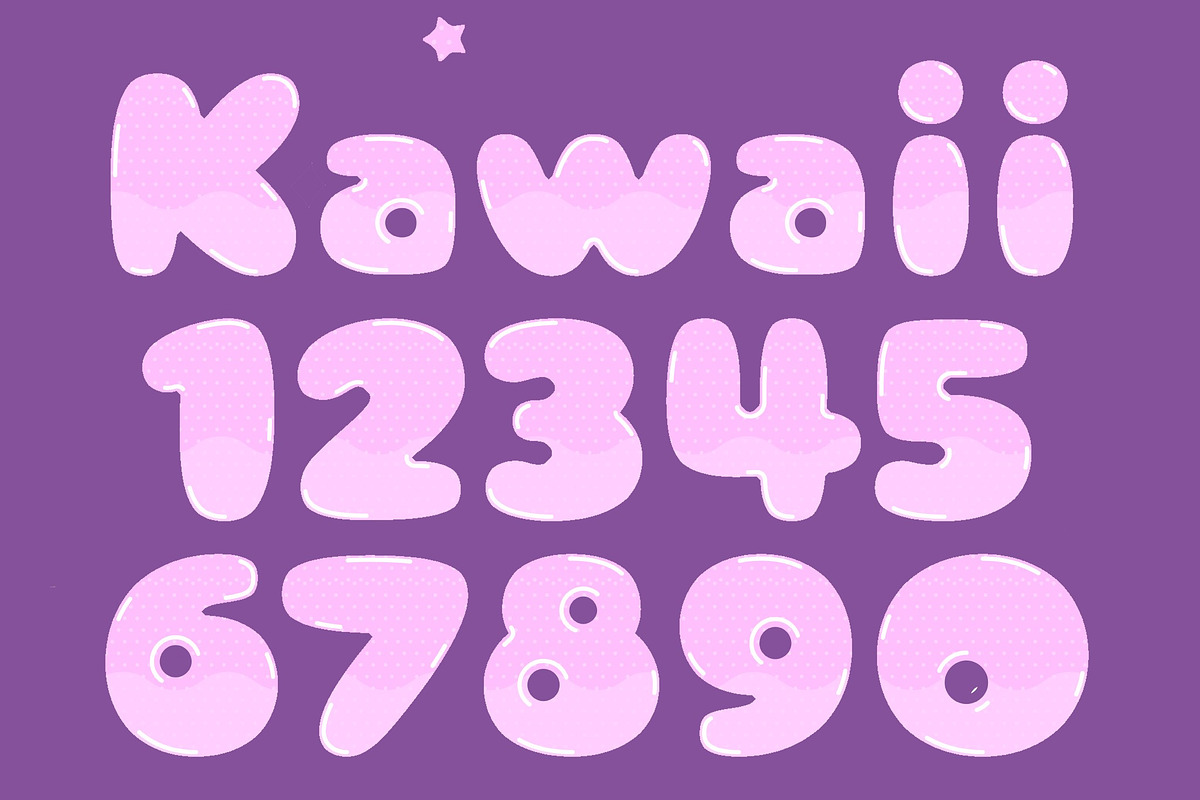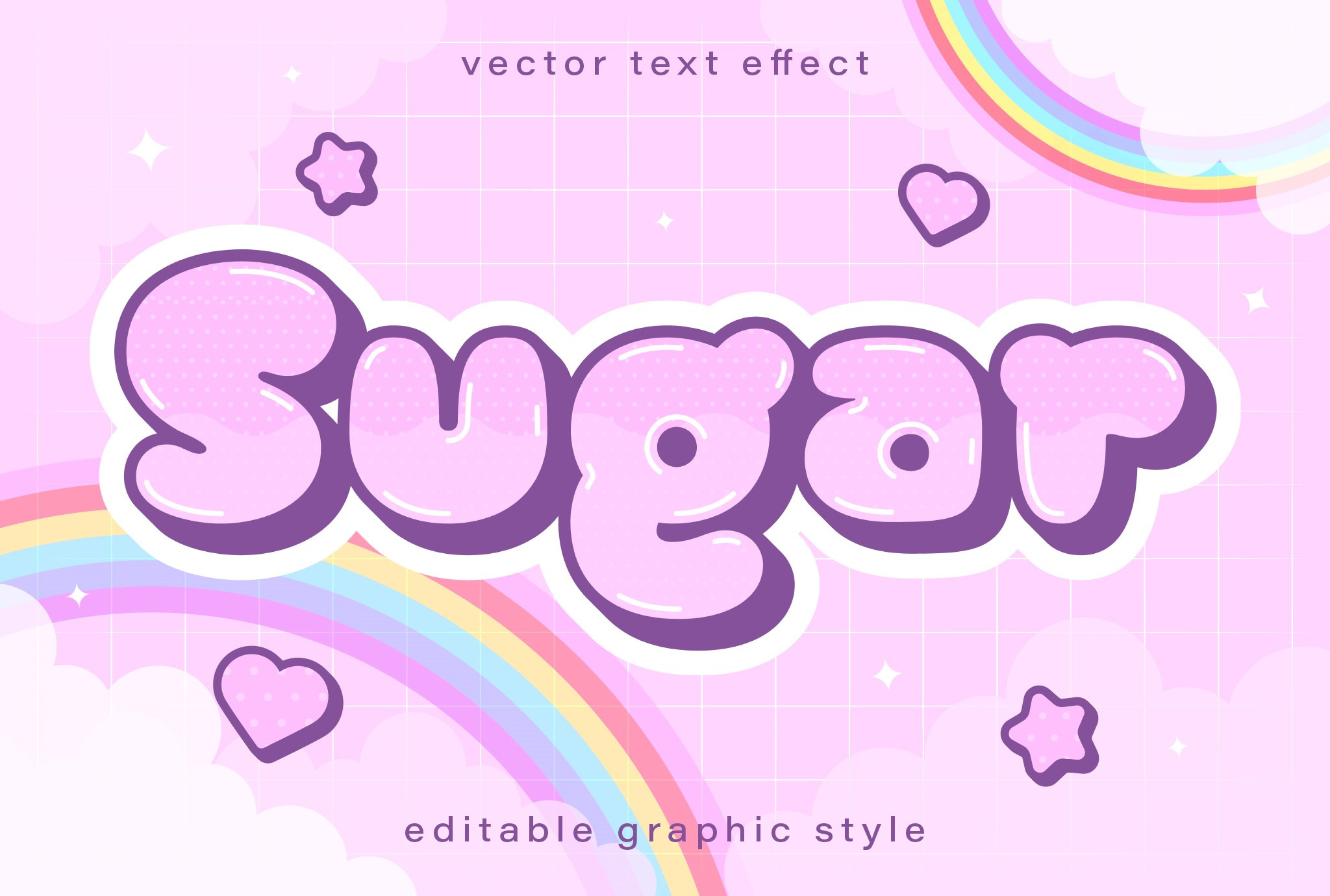
Kawaii Font Text Cute Cartoon Font
Add a sweet and playful touch to your designs with this kawaii text effect, cute cartoon font. This AIT file features soft pastel colors, bubbly lettering, and well-organized layers for easy customization. Perfect for cute branding, kids' designs, and dreamy typography projects.